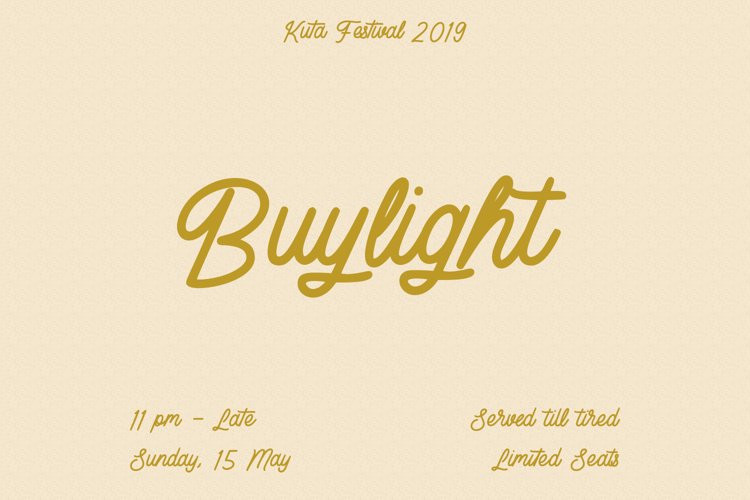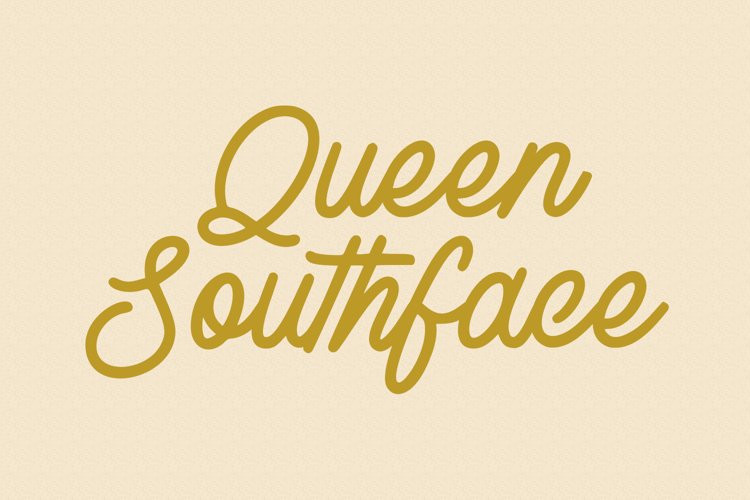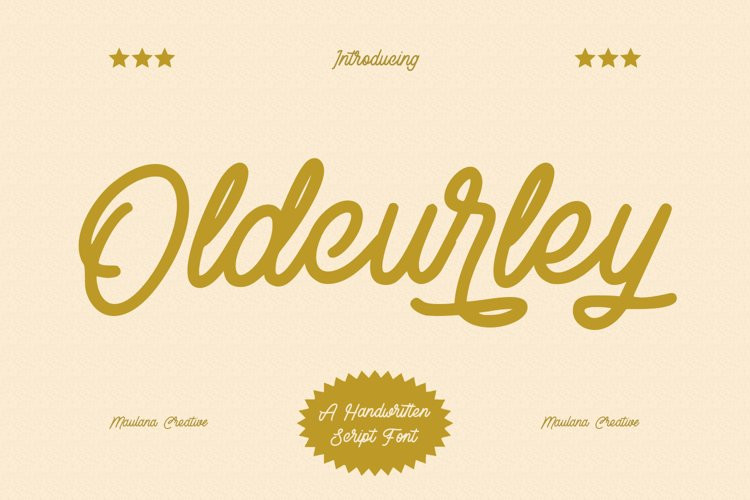
Oldcurley Font
Oldcurley FontOldcurley is a casual retro script font. With medium mono-line consist stroke, fun character with a bit of ligatures and alternates. To give you an extra creative work. Oldcurley font support multilingual more than 100+ language. This font is good for logo design, Social media, Movie Titles, Books Titles, a short text even a long text letter and good for your secondary text font with sans or serif. Make a stunning work with Oldcurley font.